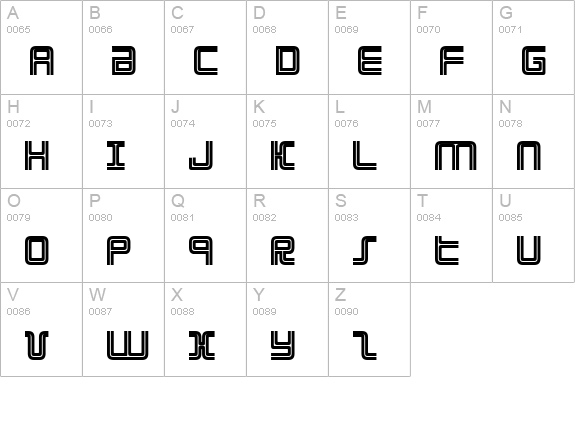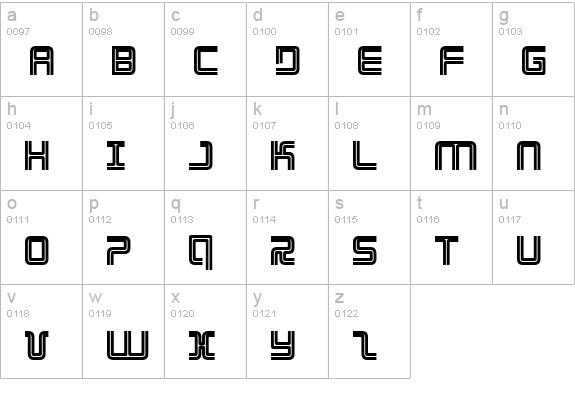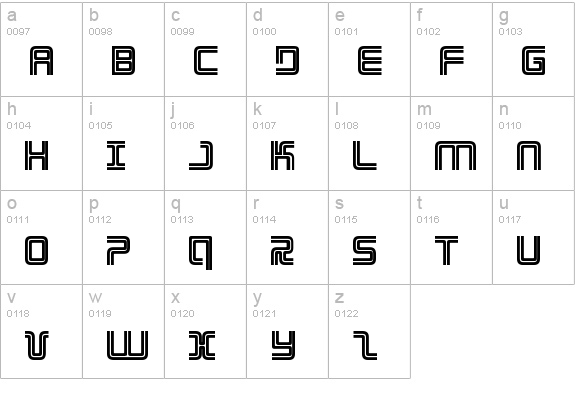
Election Day Bold is a strong, high-contrast variant in the Election typeface family \xE2\x80\x94 well suited to headlines, attention-grabbing titles, and strong calls-to-action.
Election Day Bold font is a powerful and eye-catching typeface designed to make a statement. With its bold and commanding presence, this font is perfect for headlines, posters, and any design project that needs to grab attention. Whether you're creating political campaign materials, event flyers, or social media graphics, Election Day Bold font will help your message stand out. This versatile font features strong, thick lines and sharp angles that exude confidence and authority. Its modern and sleek design is sure to make an impact and leave a lasting impression on your audience. Available for free download at FontsMarket.com, Election Day Bold font is a valuable addition to any designer's toolkit. Don't miss out on this opportunity to enhance your projects with a font that commands attention and makes a bold statement. Download Election Day Bold font today and take your designs to the next level.